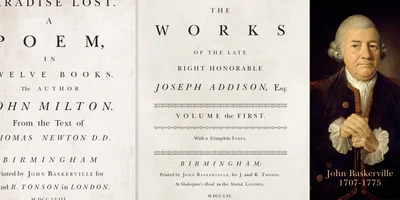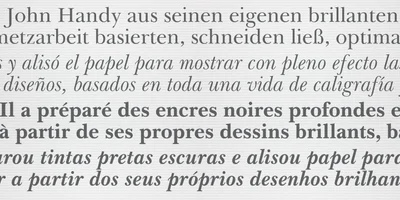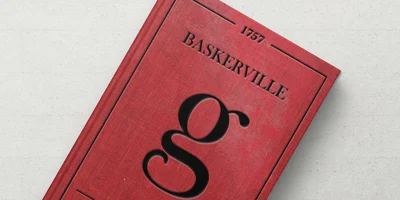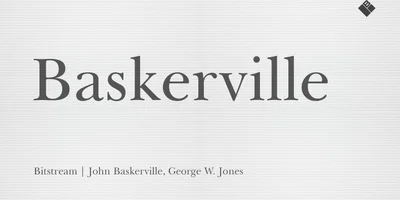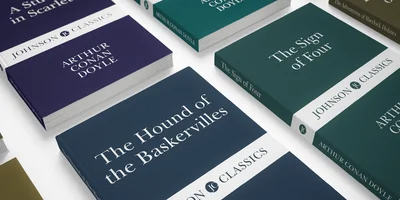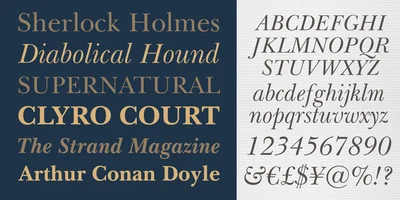
Baskerville vs Warnock Pro
Baskerville and Warnock Pro are both serif typefaces sharing a elegant foundation. Where Baskerville leans transitional, editorial, Warnock Pro brings old style, modern. Compare which suits your Editorial project.
Baskerville
Transitional
ElegantReadable
Warnock Pro
Old Style
ElegantReadableModern
Feature Baskerville Warnock Pro
Classification serif serif
Variable Font No No
Weights Multiple Multiple
Italics Yes Yes
Language Support latin, latin-extended, cyrillic, greek latin, latin-extended, cyrillic
Source Monotype Adobe
Where You'll See These Fonts
Baskerville
• Canadian government
• Stanford University
• Kindle e-readers
• Quality paperbacks
• Academic journals
Recommended: Baskerville
• transitional, editorial design character
• Suited for Book Design and Academic
• From Monotype
• Broader language support
Consider: Warnock Pro
• old style, modern design character
• Suited for Books and Print
• From Adobe